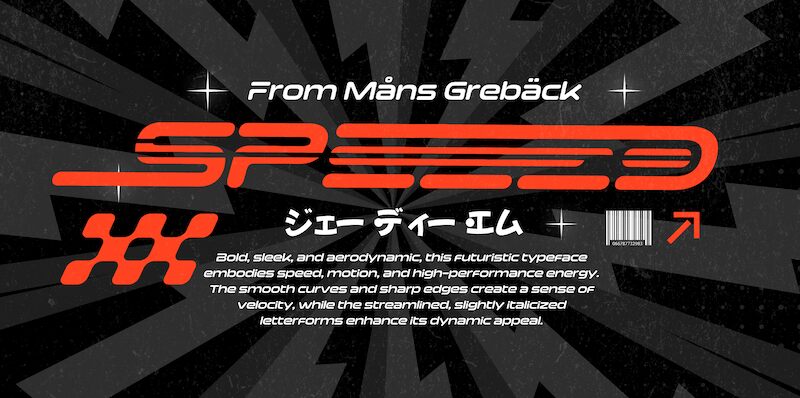
Speeed font by Mans Greback is a free display font for designers who like speed, adrenaline, and winning in their work. The futuristic font was built with modernism in mind, providing the perfect portrayal of a future society where geometric letters dominate the space. Cohesive and with expanded width, Speeed gives off acceleration vibes even when it’s static.
Use the all-uppercase characters of this streamlined typeface for car logos and businesses, games’ interfaces and covers, vehicle branding designs on trucks or race cars. They can be wonderful for advertisements; publications related to racing sports; movies opening titles; posters; stickers; apparel design patterns; product packages.